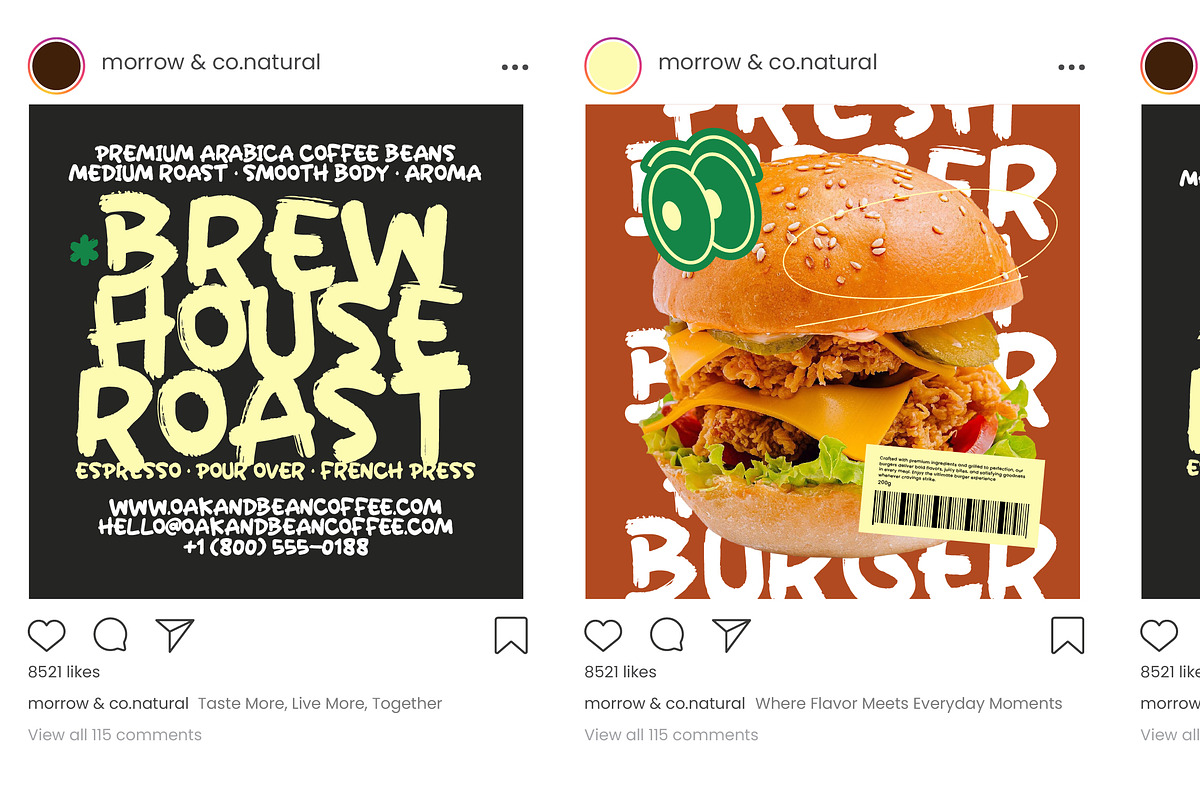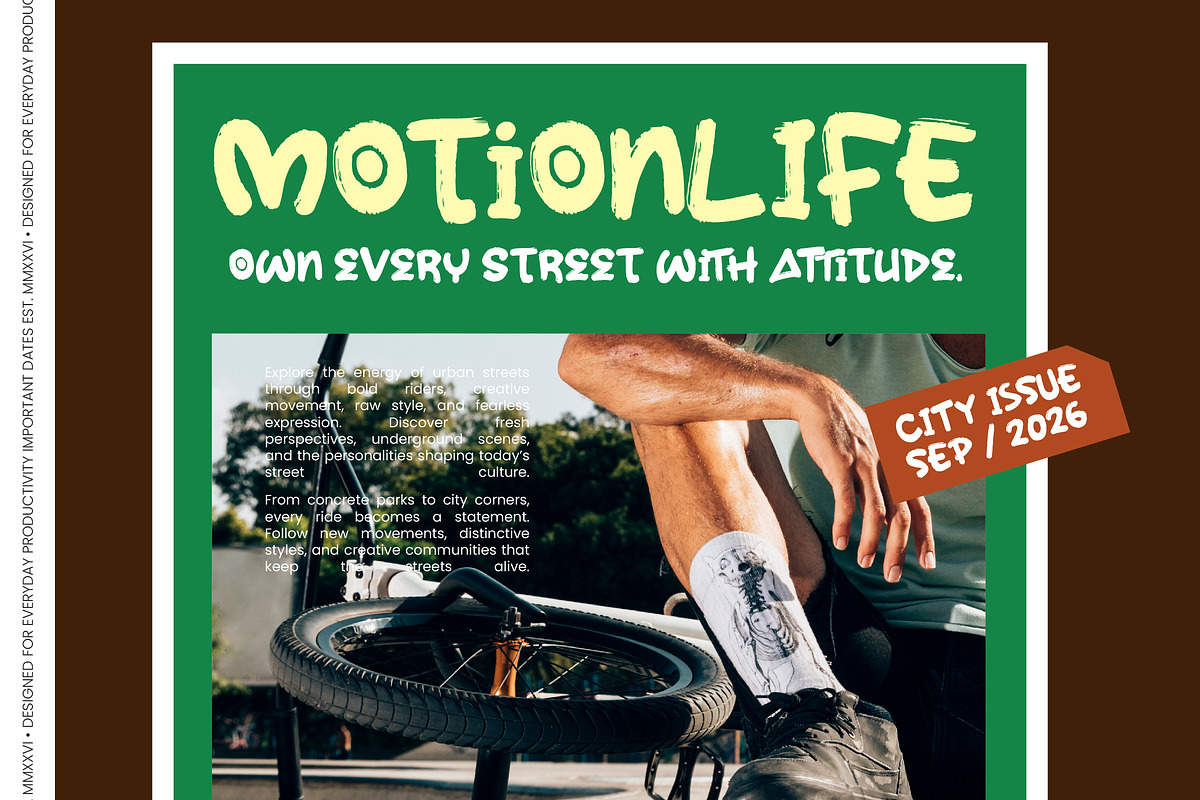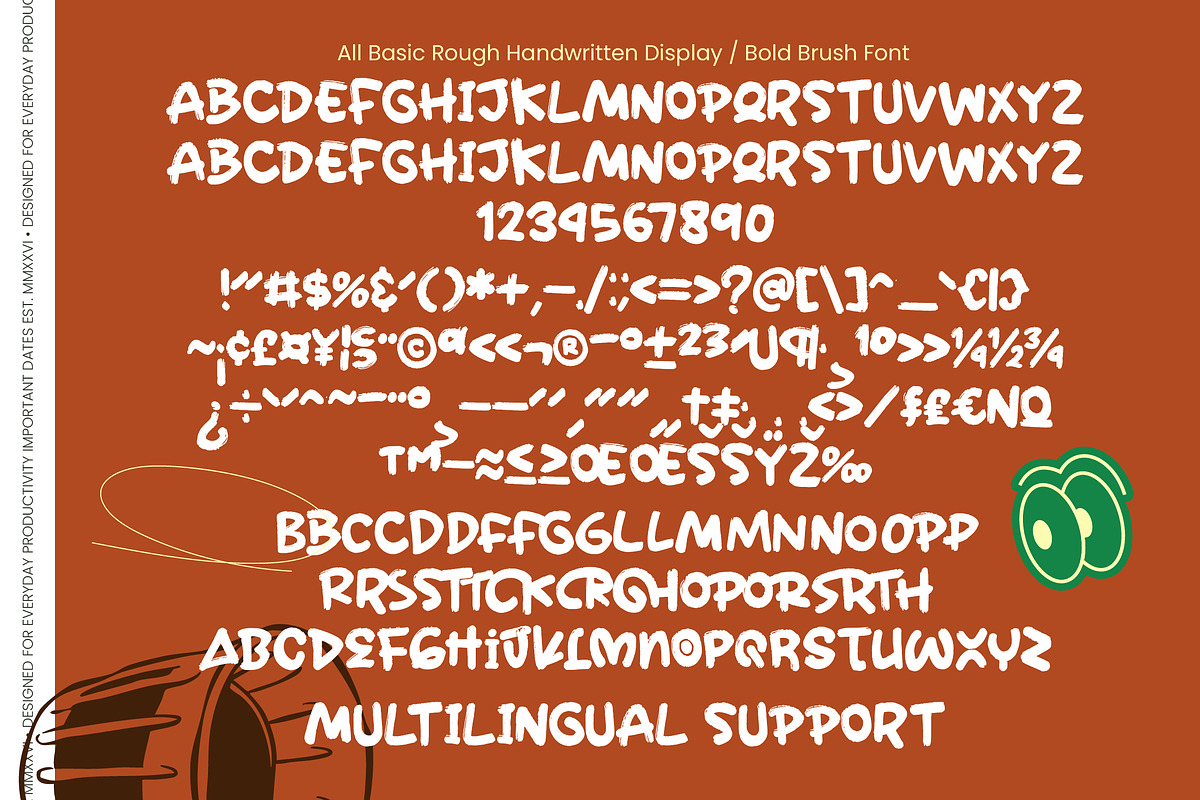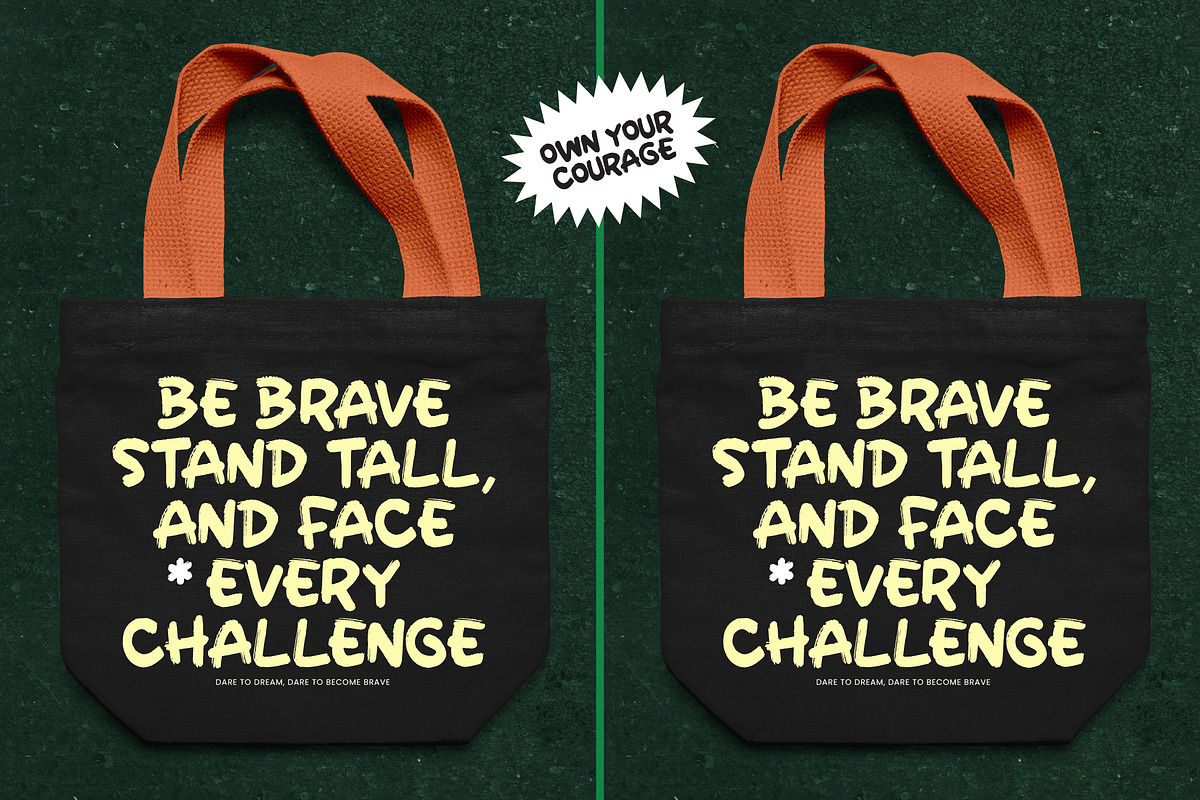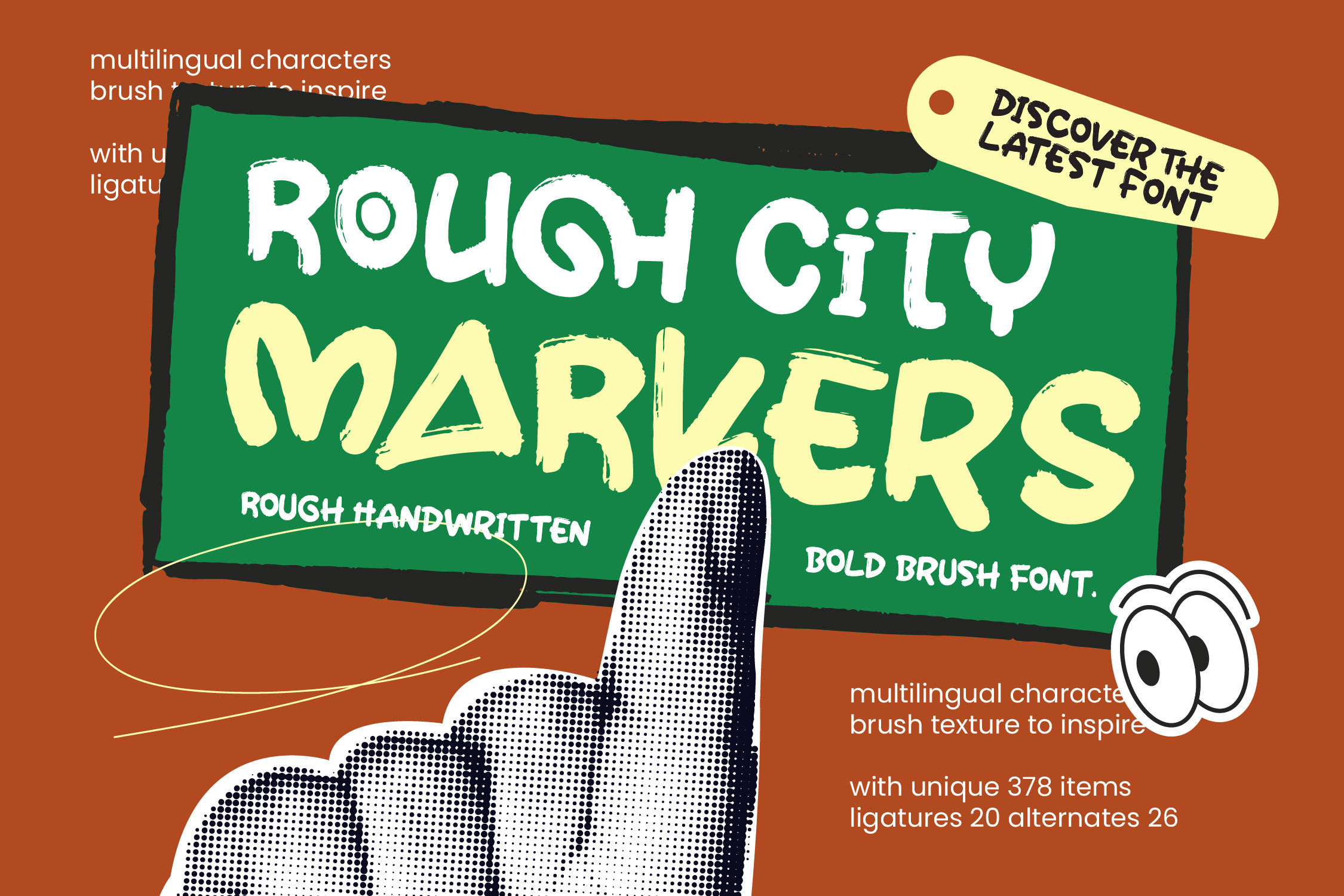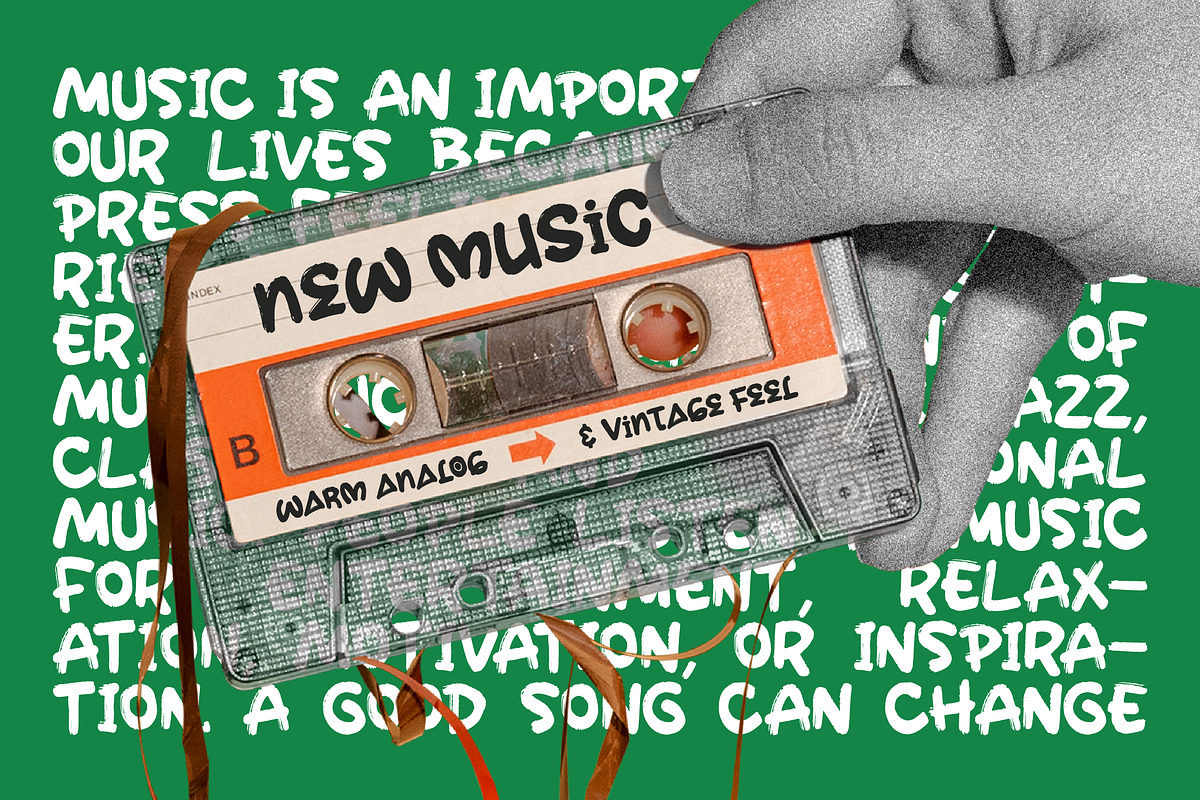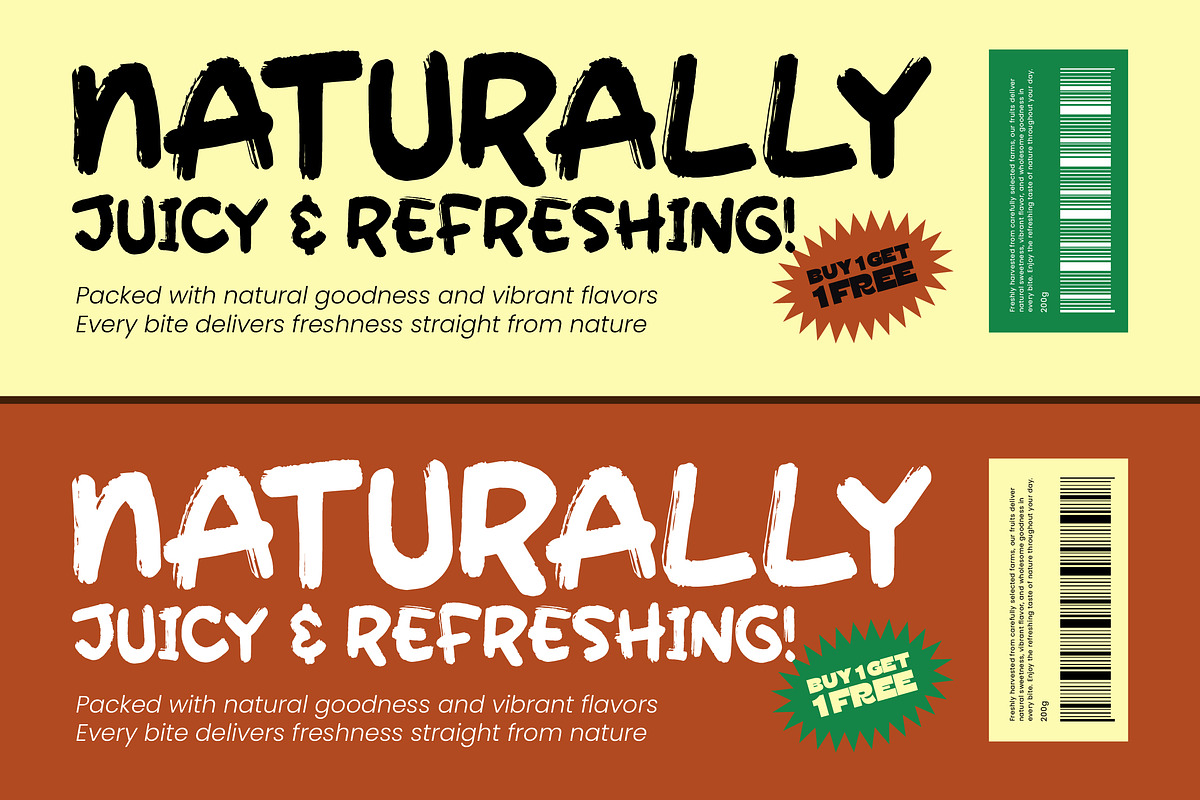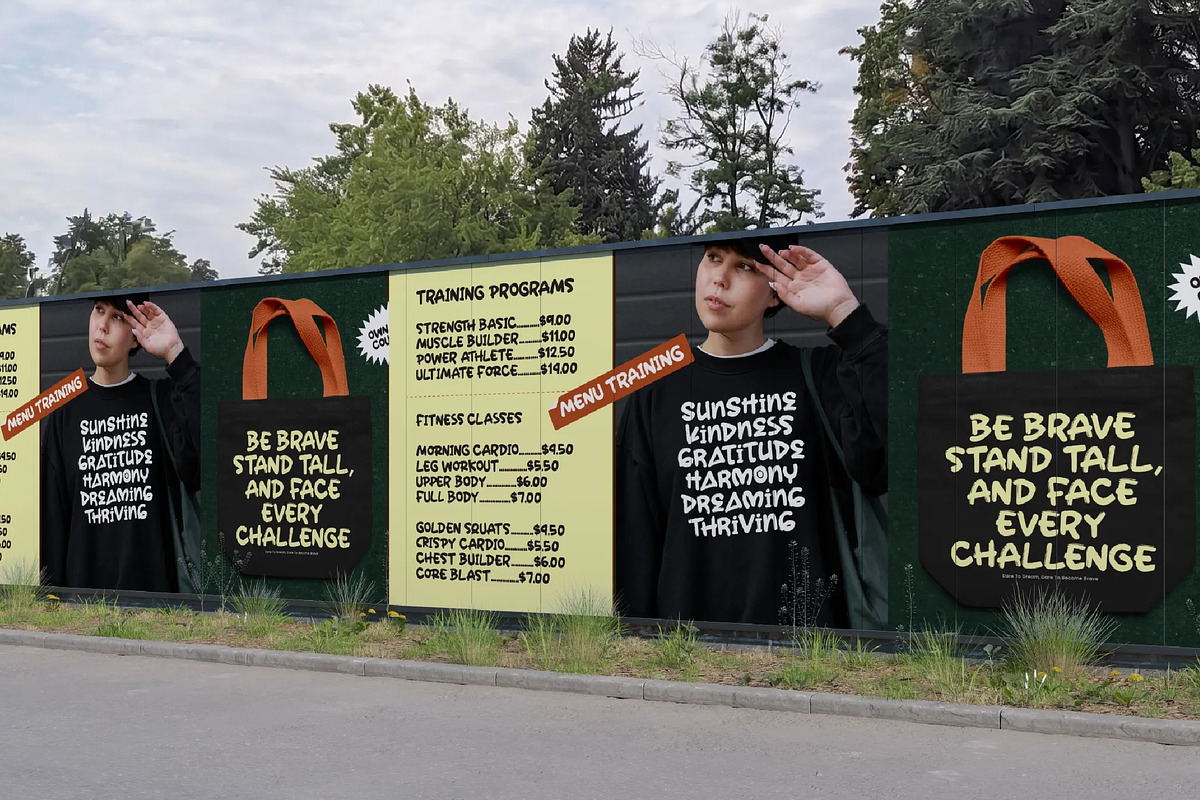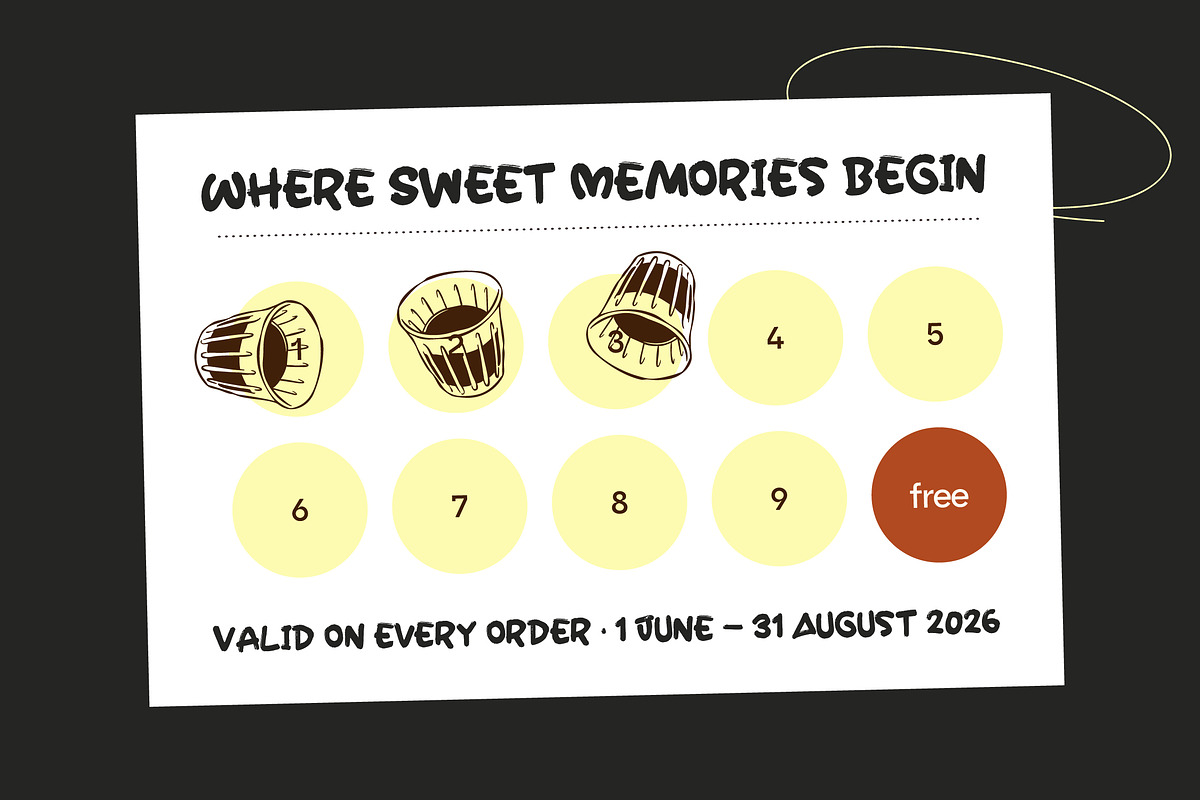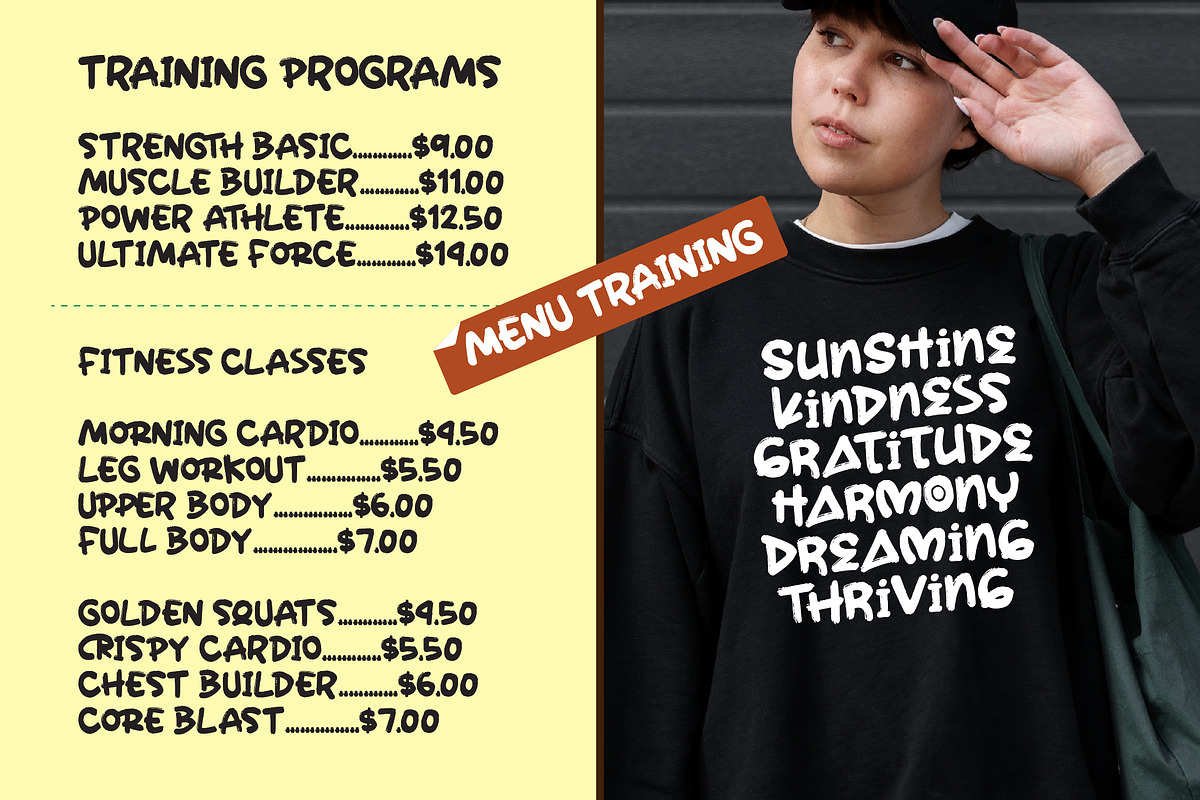
Rough City Markers Bold Brush Font
Rough City Markers - Bold Brush Font , Elevate your visual identity with the raw energy of Rough City Markers - Bold Brush Font. This hand-drawn typeface captures the authentic essence of urban street art, blending bold brush strokes with a textured aesthetic that commands immediate attention. It is the definitive choice for designers seeking a high-impact display font that balances professional craftsmanship with a gritty, organic feel.
Designed for maximum versatility, Rough City Markers - Bold Brush Font is the perfect tool for streetwear branding, dynamic packaging, and edgy editorial design. Whether you are crafting bold event posters, modern social media graphics, or creative merchandise, its unique ligatures and stylistic alternates ensure every project remains distinctive. This font excels in advertising campaigns that require a human touch and a commanding visual presence.
Break through linguistic barriers and reach a wider audience with ease. With its extensive multilingual support, Rough City Markers - Bold Brush Font adapts seamlessly across global markets, making it incredibly versatile for international projects. Boasting a comprehensive set of character alternates, it ensures your message remains clear and stylistically consistent across diverse languages and geographical territories.